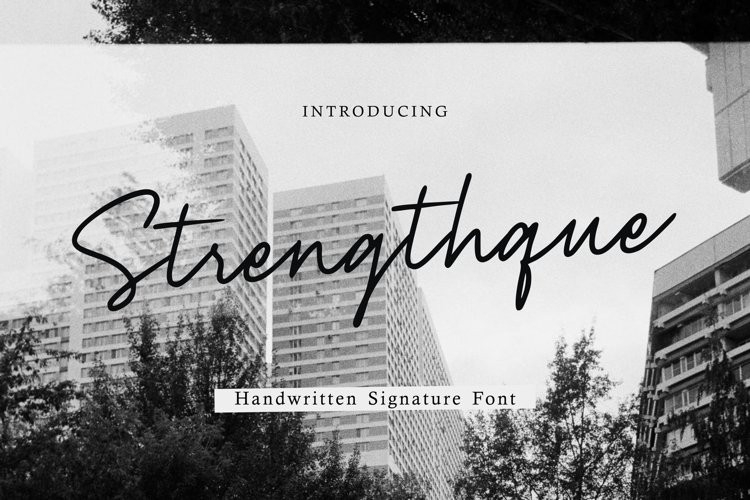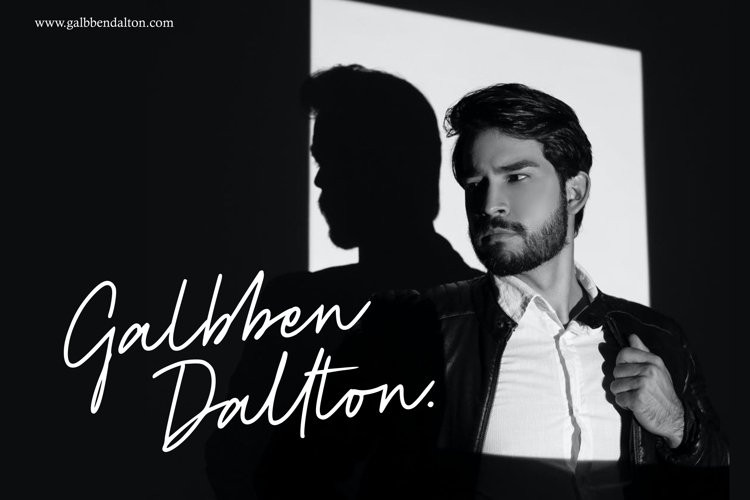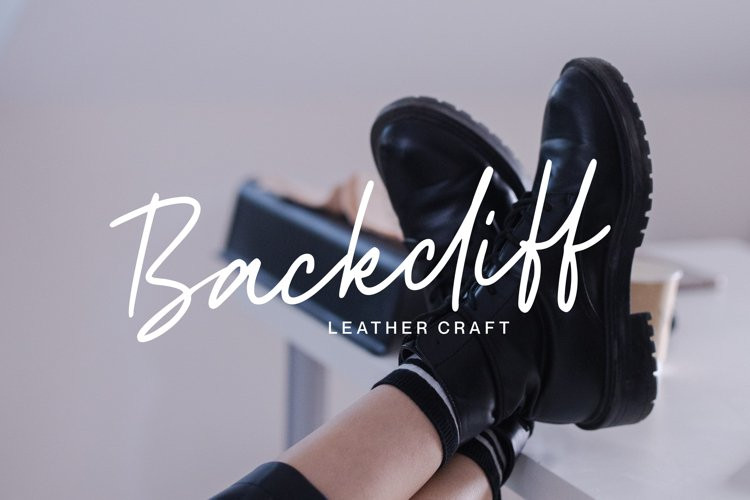
Strenghtque Font
Strenghtque FontStrenghtque is A Handwritten Signature Font
Strenghtque is perfect for product packaging, branding project, megazine, social media, wedding, or just used to express words above the background.